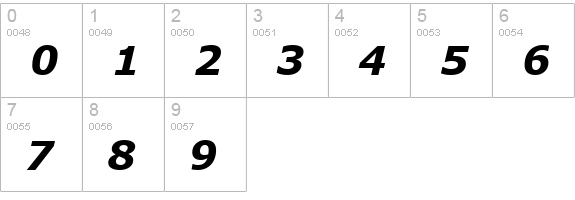
MS Reference Sans Serif Bold Italic Font Details
MS Reference Sans Serif Bold Italic is a strong, high-contrast, italic variant in the MS typeface family \xE2\x80\x94 well suited to headlines, attention-grabbing titles, and strong calls-to-action.
MS Reference Sans Serif Bold Italic font is a sleek and modern typeface that exudes confidence and professionalism. With its bold and italic styling, this font is perfect for adding emphasis and sophistication to any design project. Its clean lines and sharp angles make it highly legible and versatile for a wide range of applications. What sets MS Reference Sans Serif Bold Italic font apart is that it is available for free download at FontsMarket.com. This means that you can easily access this high-quality font without any cost, making it a valuable resource for designers, students, and anyone looking to elevate their typography game. Whether you're working on a branding project, creating promotional materials, or designing a website, MS Reference Sans Serif Bold Italic font is sure to make a bold statement. Download it today and take your designs to the next level!